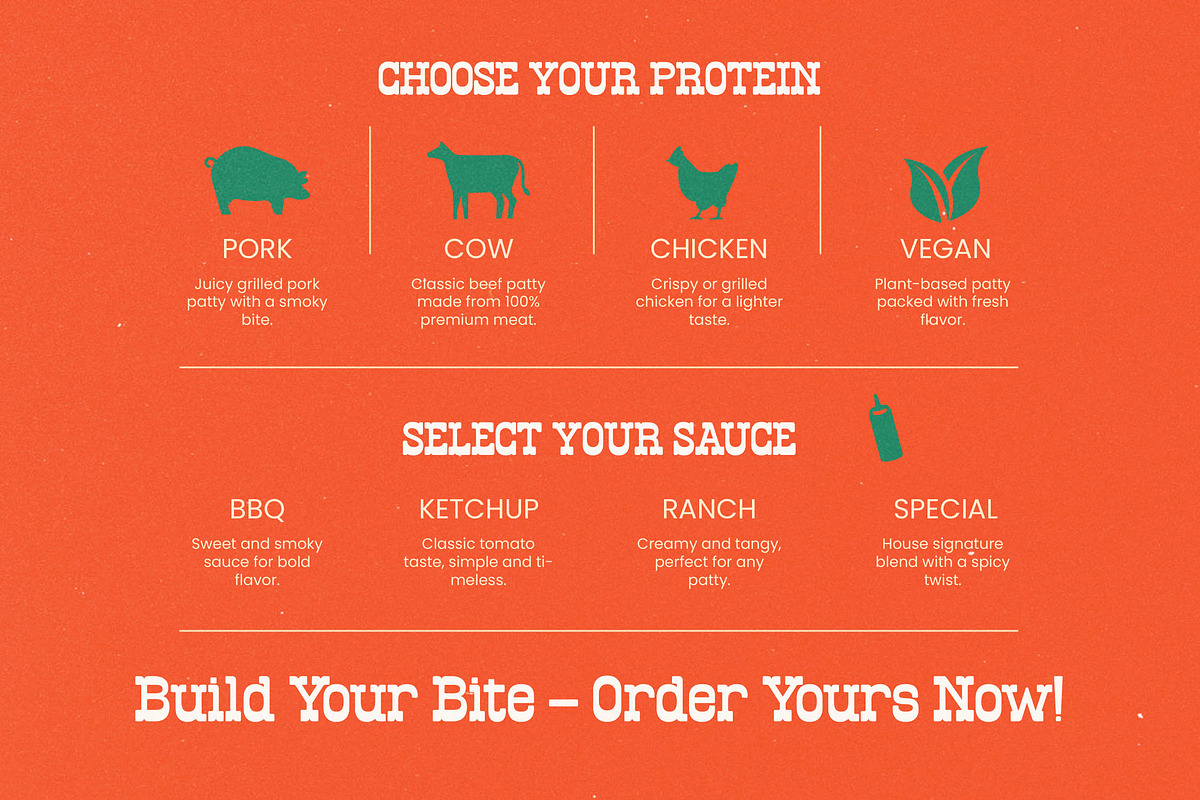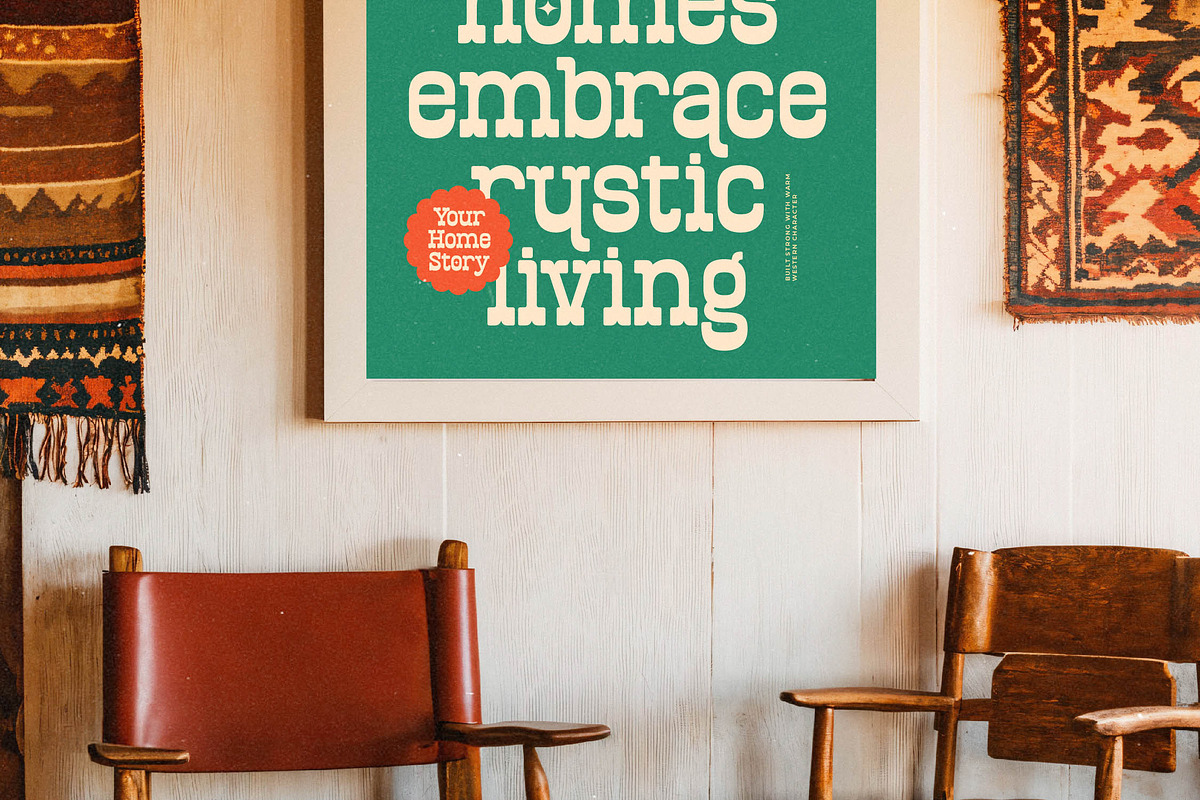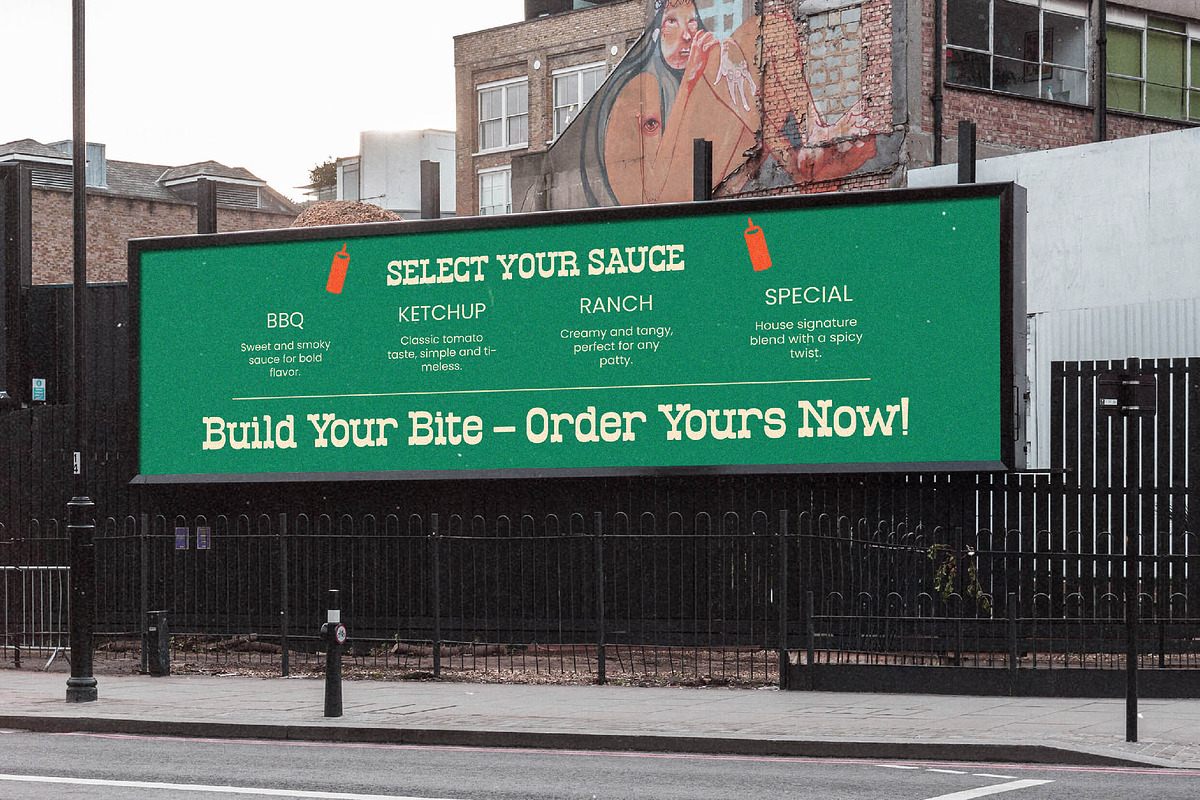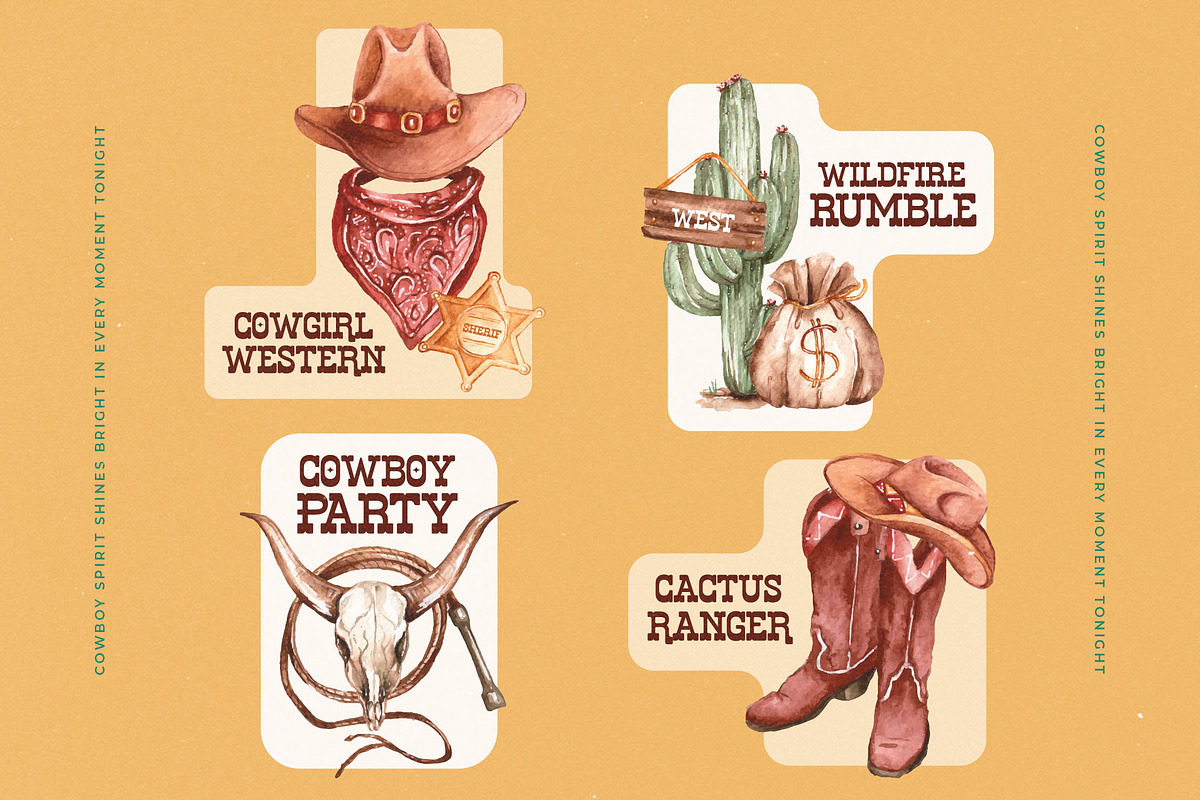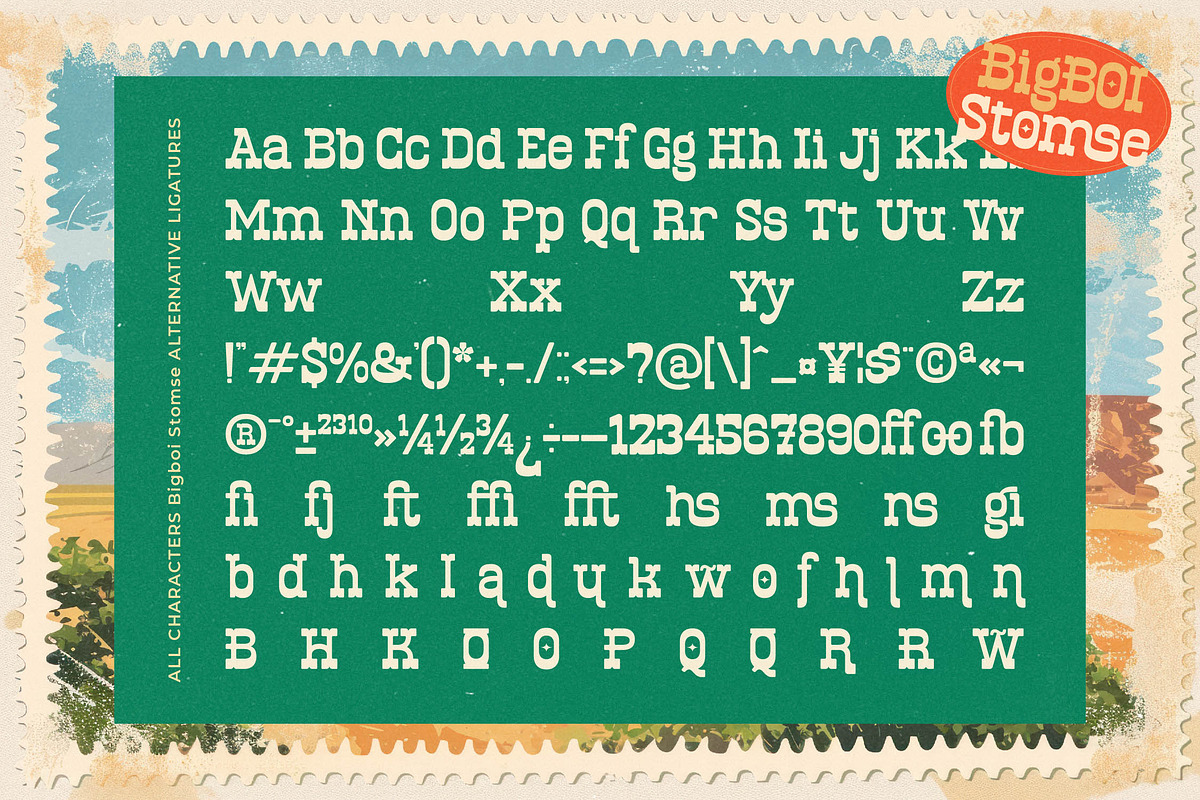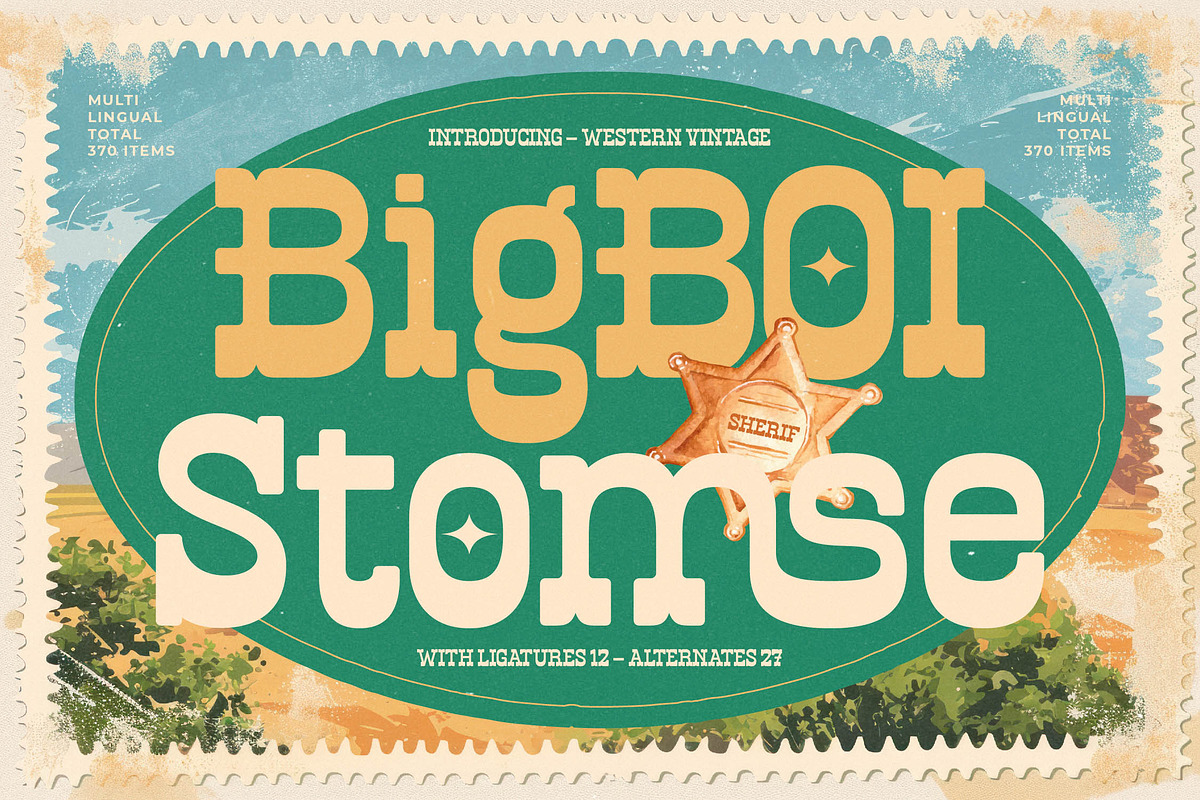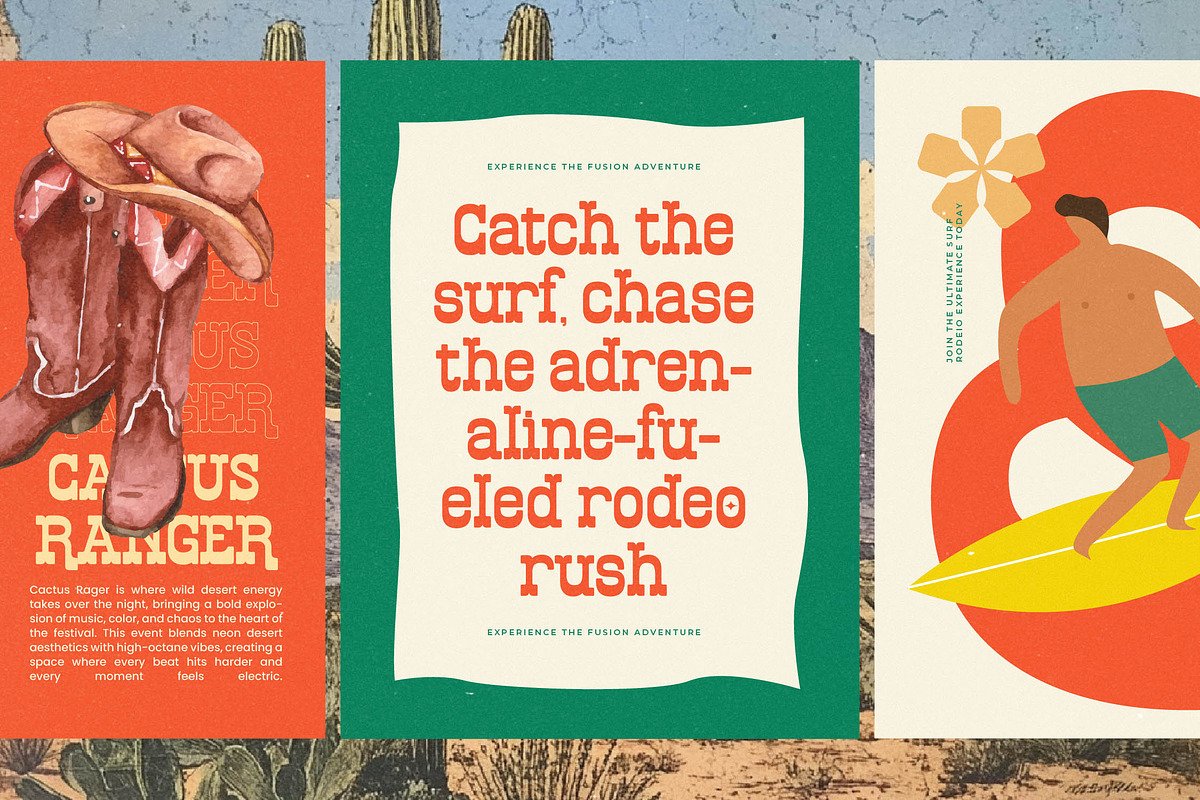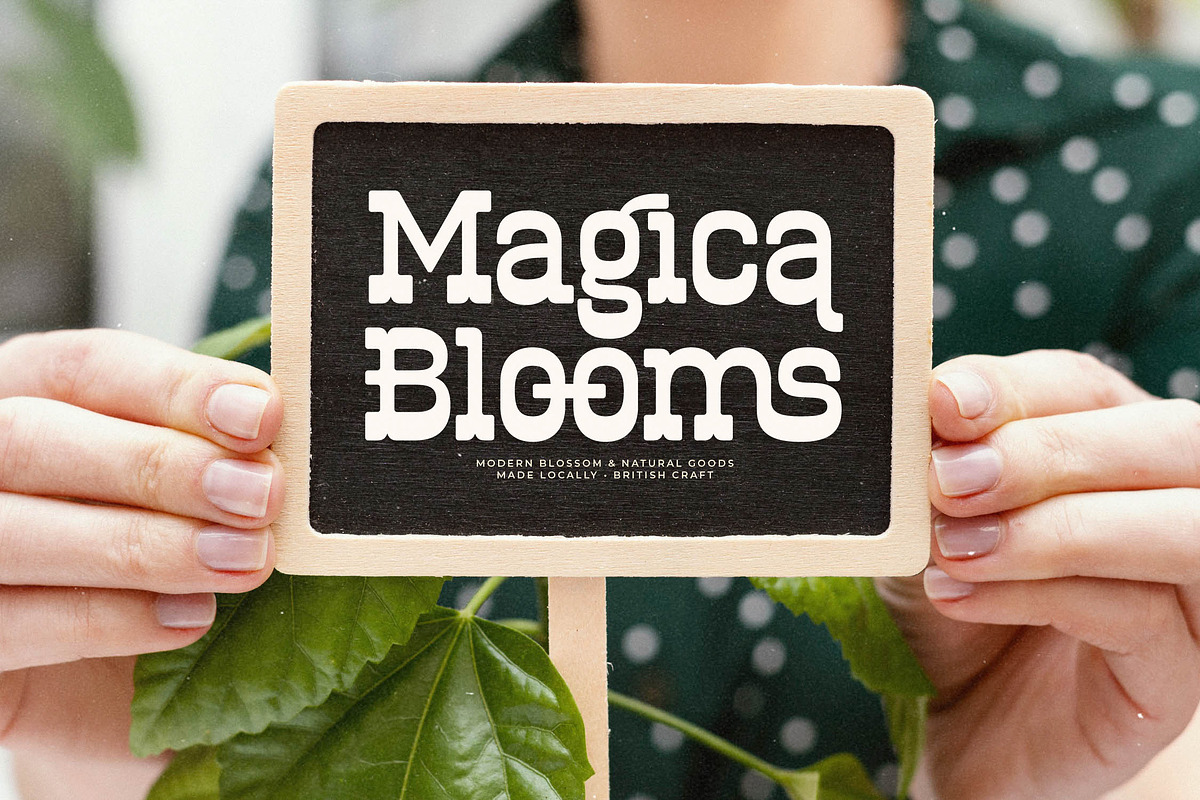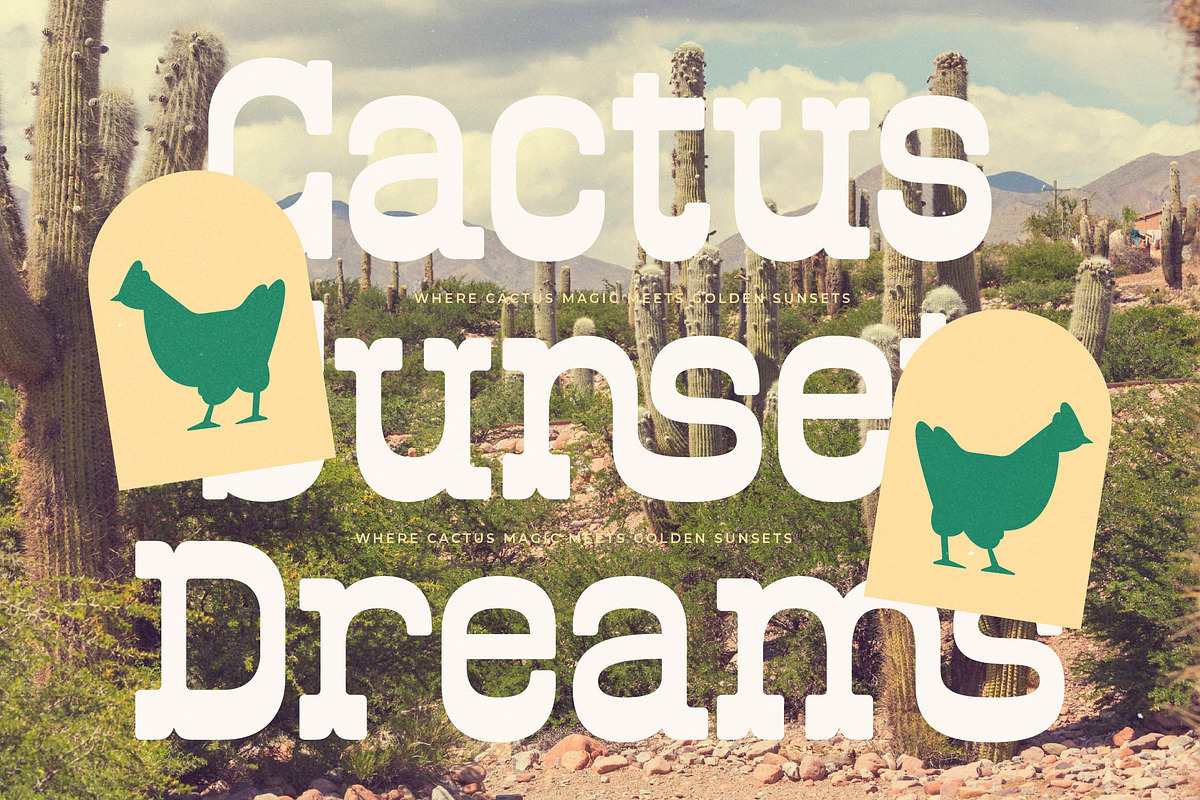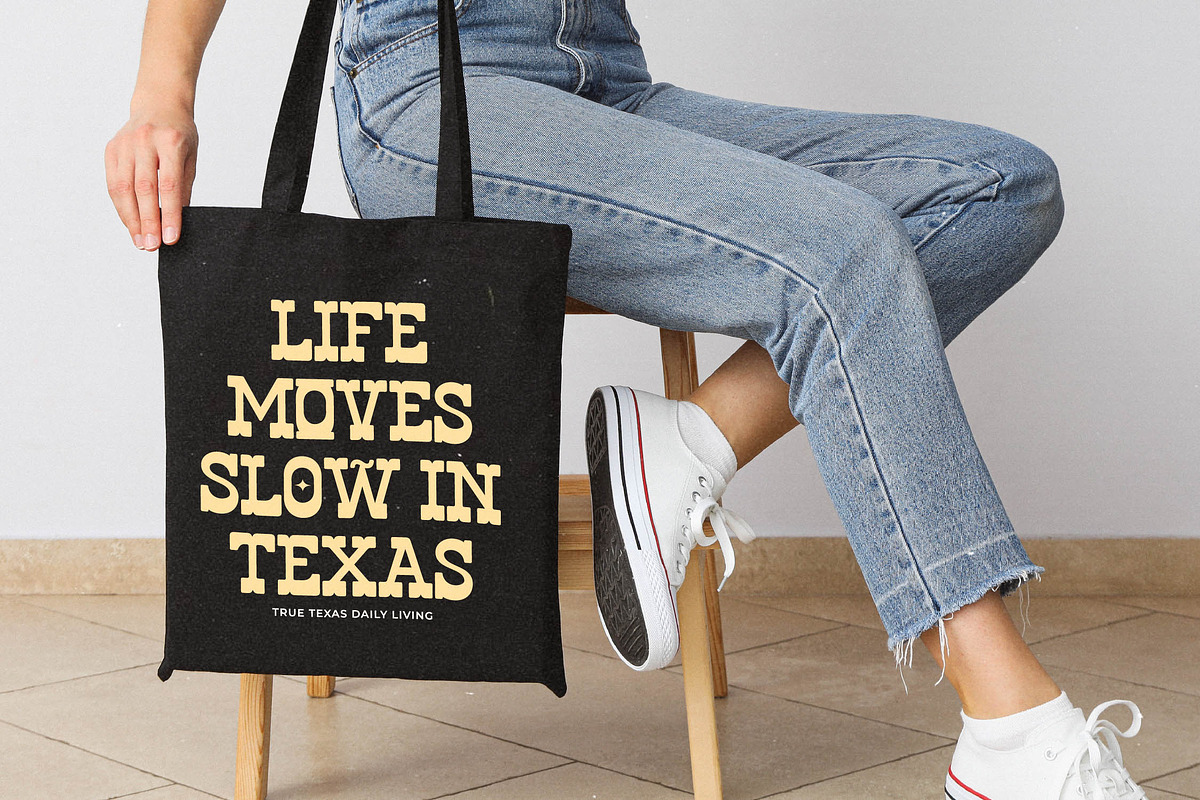
Bigboi Stomse Western Vintage
Step into a world of rugged charm and timeless character with Bigboi Stomse, a typeface designed to command attention while whispering stories of the old frontier. This font captures the essence of desert adventures and vintage postmarks, bringing a unique soul to every creative project it touches.
Inspired by the sun-drenched landscapes of the American West and the weathered textures of antique postage stamps, this typeface balances heritage with a contemporary edge. Its sturdy stems and playful curves evoke the spirit of a modern-day sheriff's badge, blending the dust of the trail with the polish of high-end design.
This modern serif display is engineered for luxury typography and maximum branding impact, ensuring your message stands out in a crowded marketplace. With its high-contrast serif details and unique personality, it serves as an essential editorial font for those who refuse to settle for the ordinary.
Aligning perfectly with the current modern serif trend, this typeface meets the demand for character-driven typography that feels both nostalgic and forward-thinking. It is a staple for designers seeking editorial display fonts that can carry the weight of a brand’s identity while maintaining a sense of whimsical discovery.
From the rugged trails of logo design to the refined aesthetic of packaging, this font is versatile enough to handle branding for artisanal products or high-end fashion labels. Whether it is used for a desert-themed wedding invitation or a bold editorial layout, it provides a distinctive voice that resonates with authenticity.
Unlock a wealth of creative possibilities with a comprehensive set of ligatures and alternates that allow for custom-tailored headlines and unique flourishes. Supporting a wide range of multilingual needs and including essential international characters, this font also features decorative swashes to add that final touch of vintage flair to your work.
Numerals
Punctuations (OpenType Standard)
Accents (Multilingual Characters)
Ligatures and Alternative Style Stylistic Set